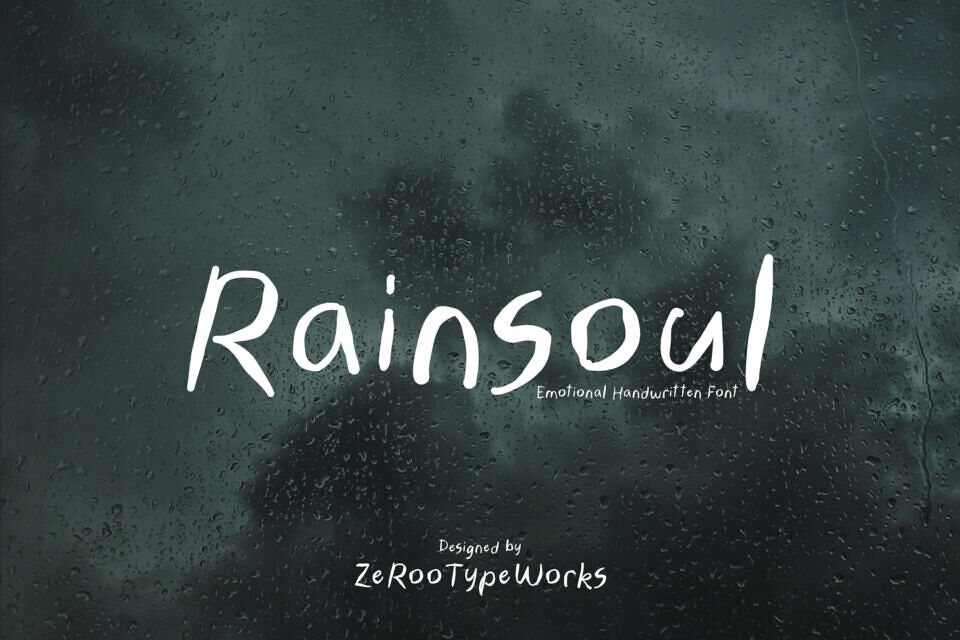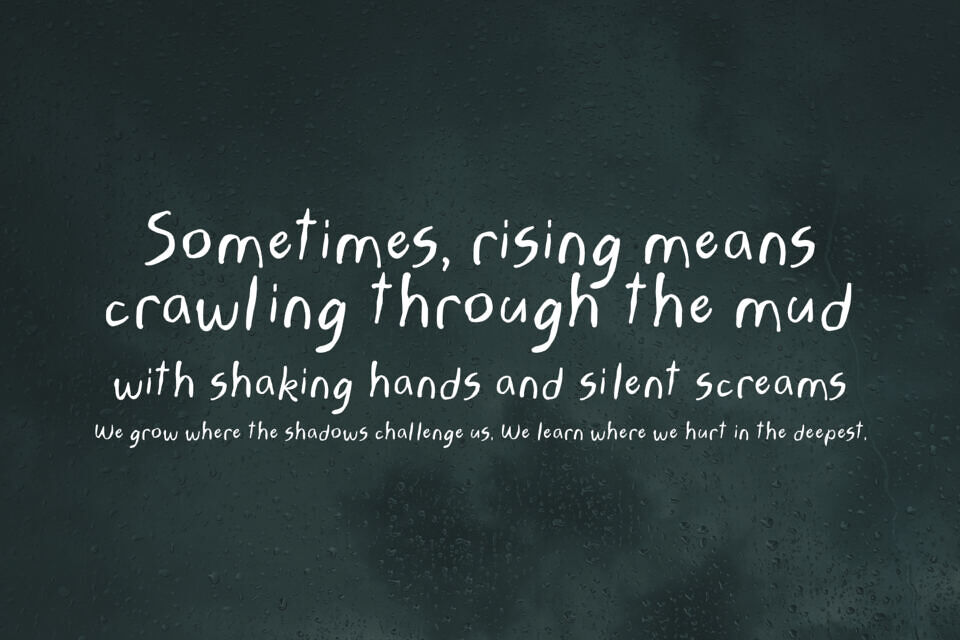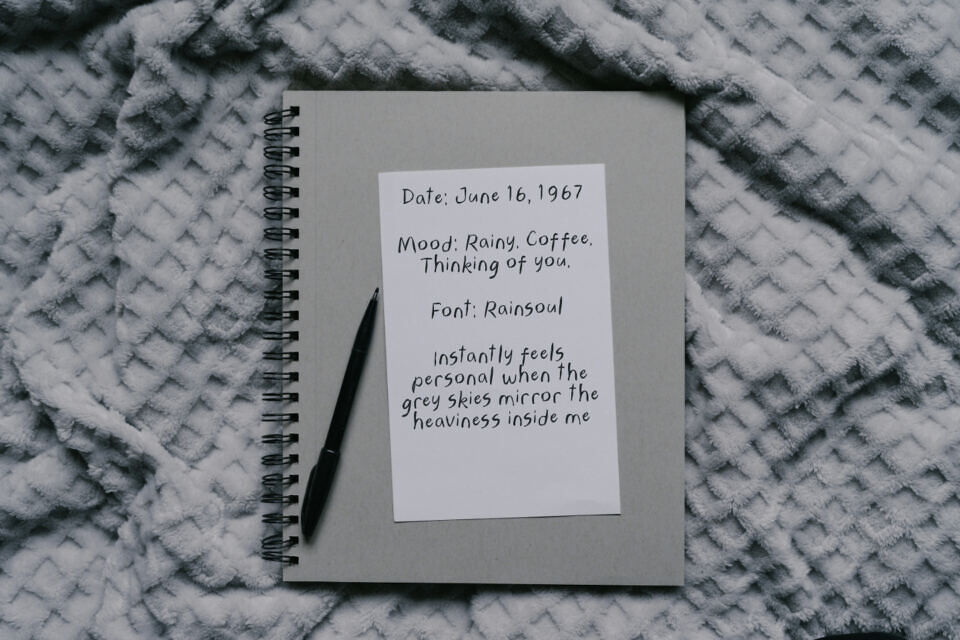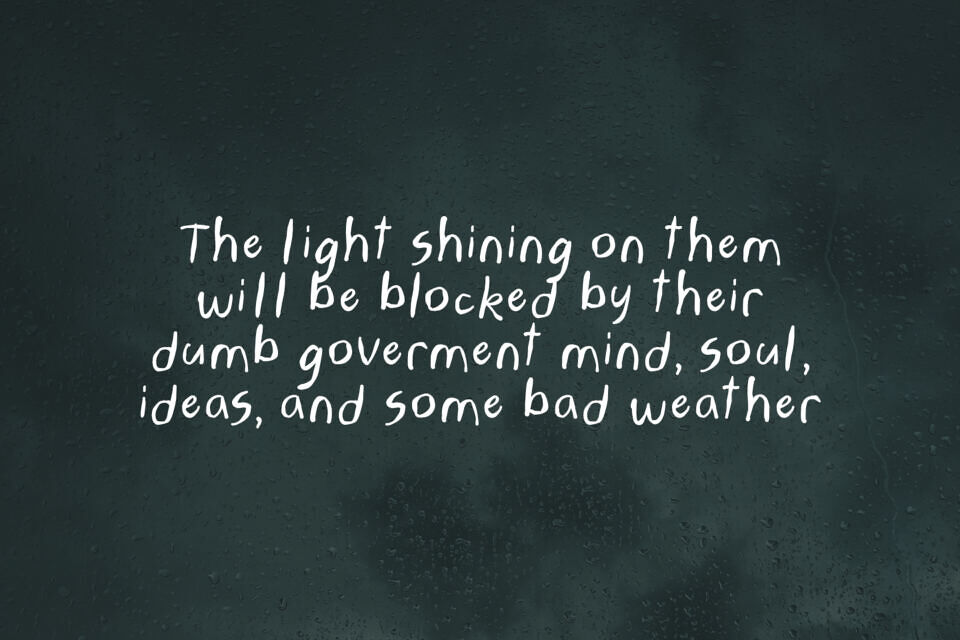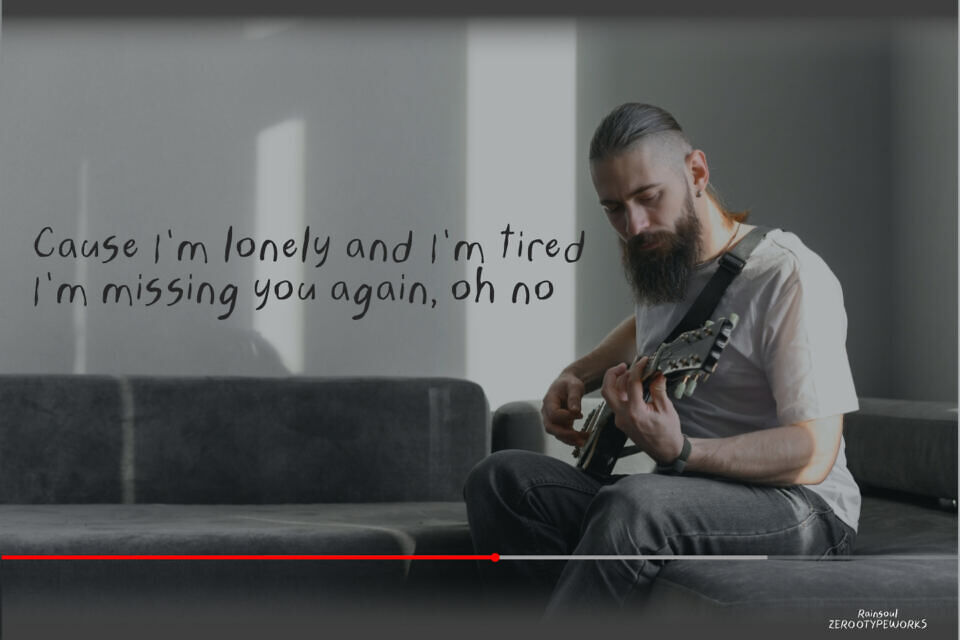
Rainsoul is an emotional handwritten font with soft curves and a natural writing rhythm. Its slightly uneven structure gives it an authentic, intimate look like notes scribbled on a rainy afternoon.
Ideal for poetry, minimalist branding, emotional storytelling, or music-related visuals, Rainsoul adds depth and human warmth to your design.